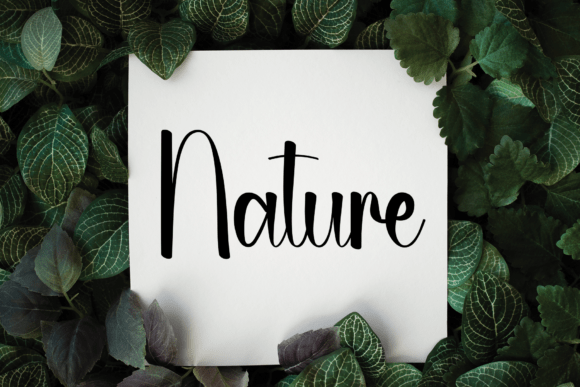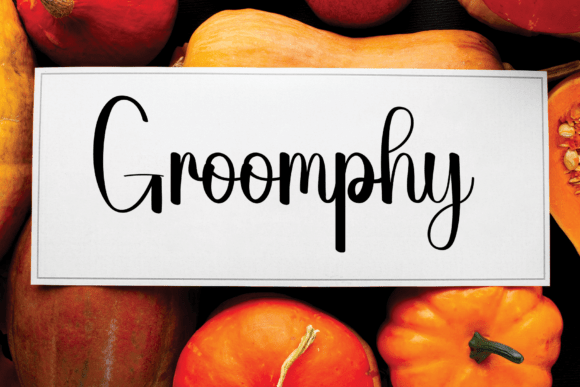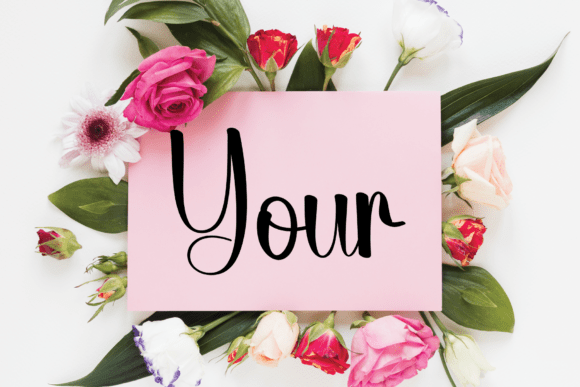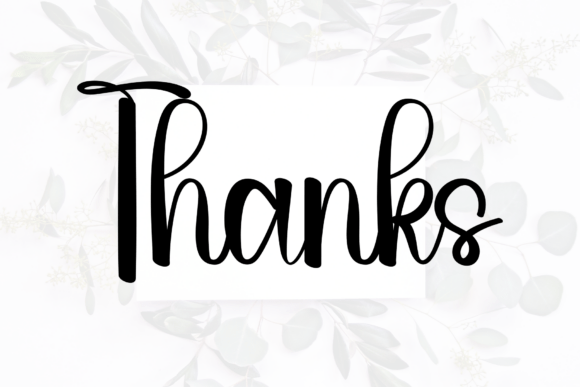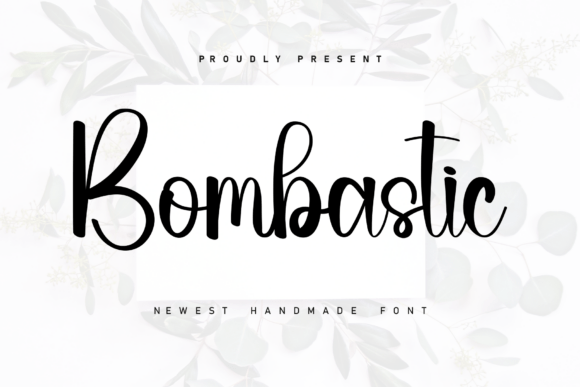
Bombastic Font: The Charming Handwritten Font for Your Design Projects
Are you looking for a font that can add a touch of personality and warmth to your design projects? Look no further than Bombastic, a charming handwritten font that is filled with a sense of heartfelt perfection. With its smooth strokes and organic lines, Bombastic evokes a relaxed atmosphere that makes it perfect for a variety of design projects, from branding and invitations to social media graphics and more.
The Characteristics of Bombastic Font
Bombastic is a unique and eye-catching font that is characterized by its smooth, flowing strokes and organic lines. The font has a handmade feel that gives it a personal and approachable touch, making it perfect for designers who want to add a bit of personality to their work. The letters are carefully crafted to create a sense of movement and fluidity, giving the font a dynamic and energetic feel.
One of the standout features of Bombastic is its versatility. The font is highly legible and can be used in a variety of contexts, from large headings and titles to smaller body text. It’s also highly adaptable, and can be used in a range of design projects, from digital graphics and social media posts to print materials like brochures and flyers.
Uses for Bombastic Font
Bombastic is a highly versatile font that can be used in a wide range of design projects. Here are just a few examples of how you can use Bombastic to add a touch of personality and warmth to your work:
• Branding: Use Bombastic to create a unique and memorable brand identity that sets your business apart from the competition. The font’s smooth strokes and organic lines make it perfect for creating logos, business cards, and other branding materials.
• Invitations: Add a touch of elegance and sophistication to your invitations with Bombastic. The font’s flowing strokes and organic lines make it perfect for creating beautiful wedding invitations, birthday invitations, and other special occasion invites.
• Social Media Graphics: Use Bombastic to create eye-catching social media graphics that grab attention and drive engagement. The font’s dynamic and energetic feel makes it perfect for creating graphics that stand out in crowded social media feeds.
• Print Materials: Bombastic is also highly suitable for print materials like brochures, flyers, and posters. The font’s high legibility and adaptability make it perfect for creating materials that need to be easy to read and visually appealing.
Why Choose Bombastic Font?
• Unique and Eye-Catching: Bombastic is a unique and eye-catching font that will help your design projects stand out from the crowd.
• Highly Legible: The font is highly legible, making it perfect for use in a variety of contexts, from large headings to smaller body text.
• Versatile: Bombastic is highly versatile and can be used in a wide range of design projects, from digital graphics to print materials.
In conclusion, Bombastic is a charming handwritten font that is perfect for designers who want to add a touch of personality and warmth to their work. With its smooth strokes and organic lines, Bombastic evokes a relaxed atmosphere that makes it perfect for a variety of design projects. Whether you’re creating branding materials, invitations, social media graphics, or print materials, Bombastic is a great choice. So why not give Bombastic a try and see how it can help take your design projects to the next level?
• Charming handwritten font
• Smooth strokes and organic lines
• Highly legible and versatile
• Perfect for branding, invitations, social media graphics, and print materials